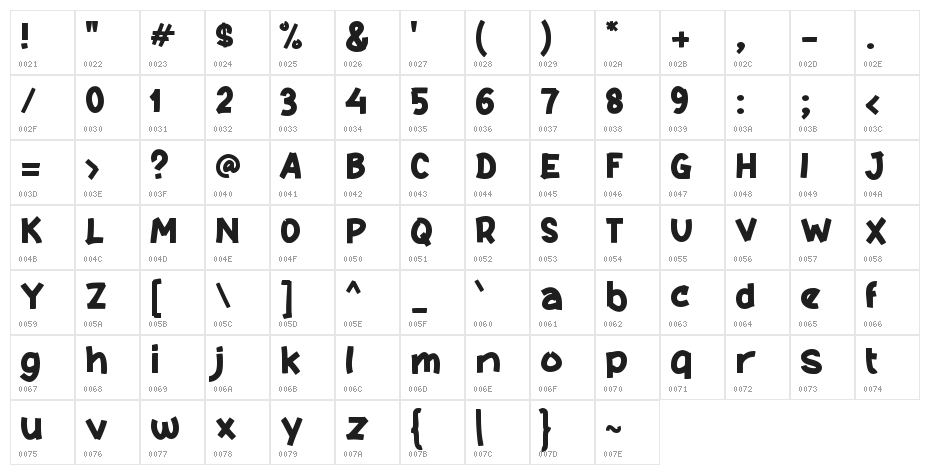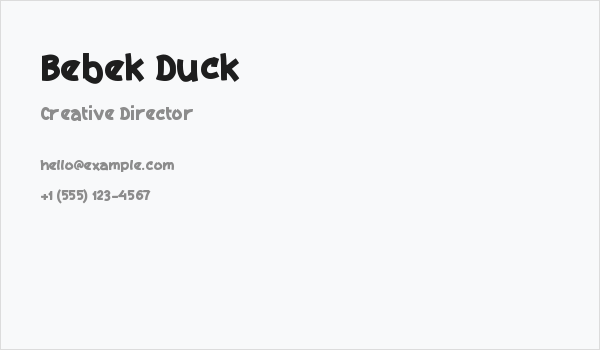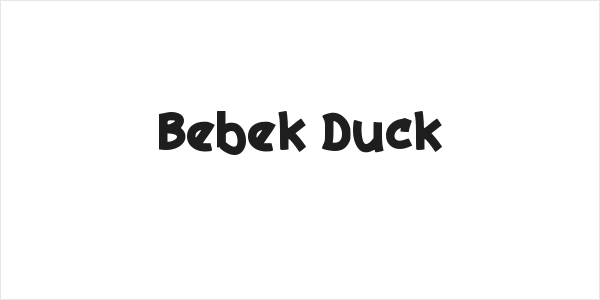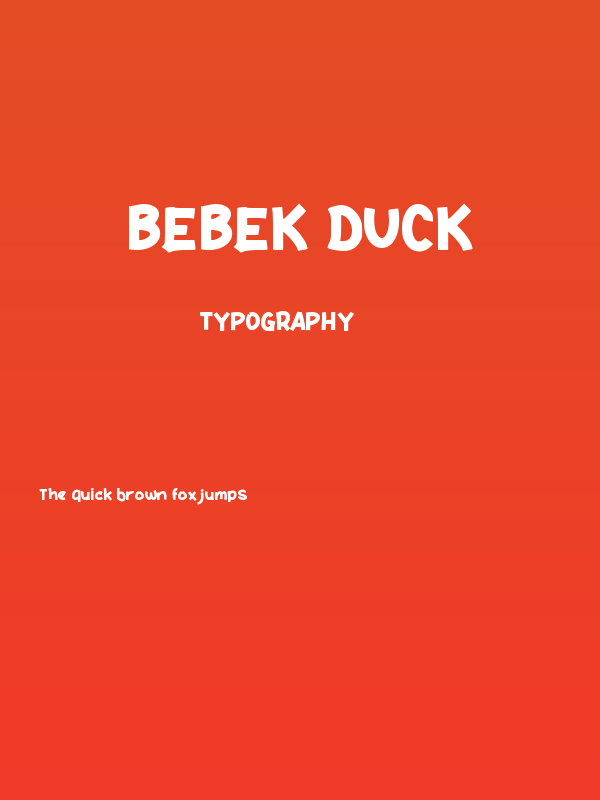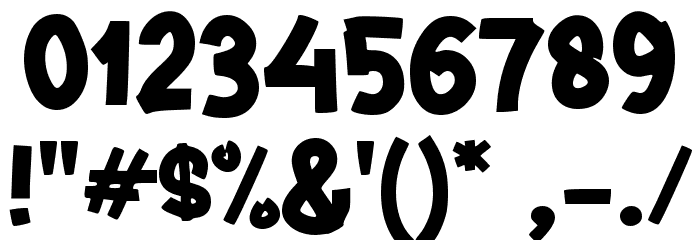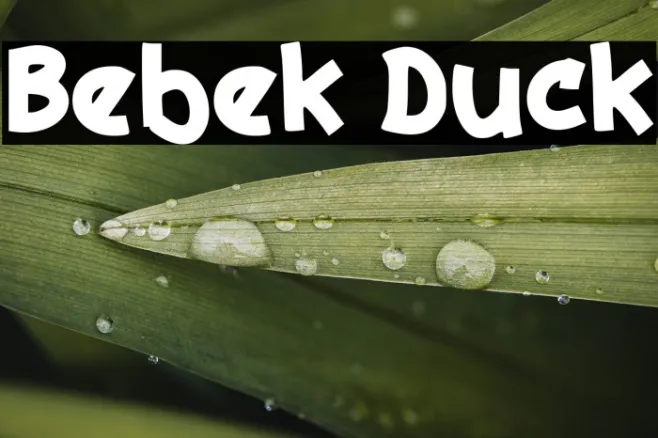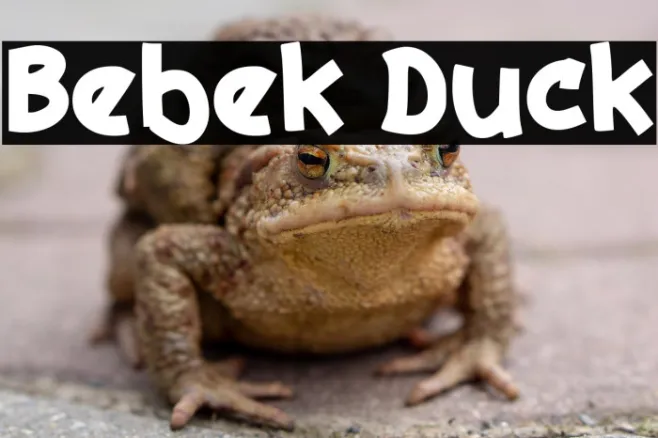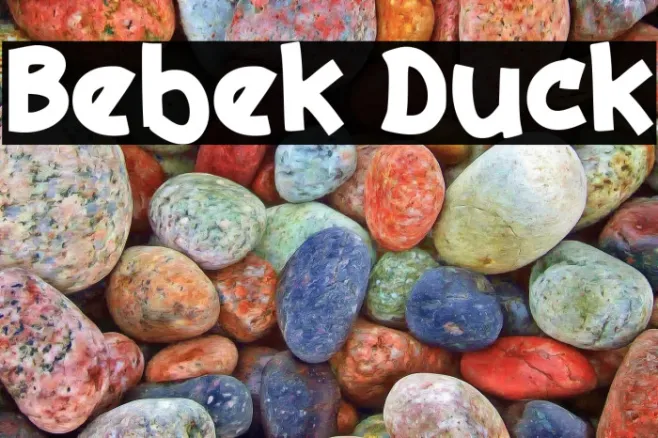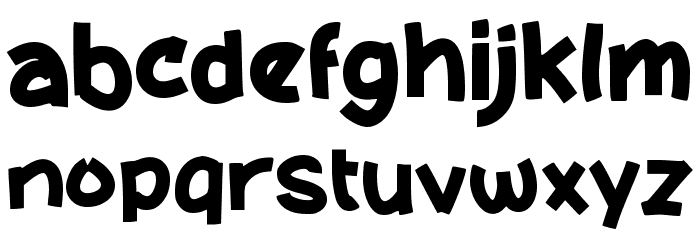
Bebek Duck Font
Bebek Duck Description
This playful and bold font features a distinctive, cartoonish style with exaggerated curves and a slightly irregular baseline, giving it a whimsical and fun appearance. The characters are thick and rounded, providing a strong visual impact while maintaining a friendly and approachable feel. The uppercase and lowercase letters are well-balanced, with consistent stroke widths that enhance readability. The numerals and special characters follow the same playful design, making them suitable for a variety of creative applications.
| Proposed Projects | Ideal for children's books, comic strips, playful branding, and creative posters. |